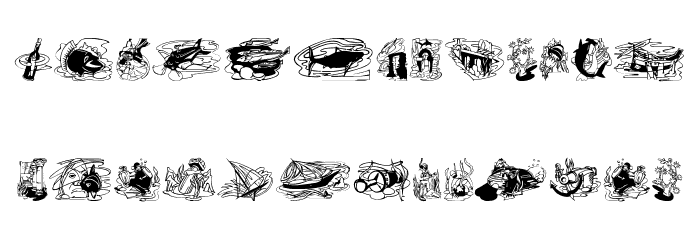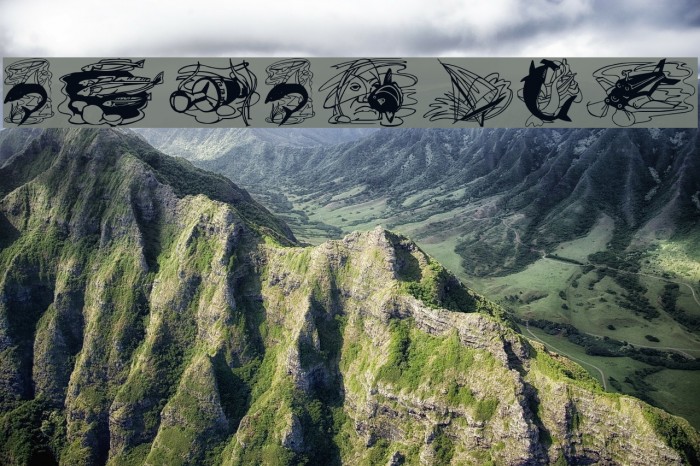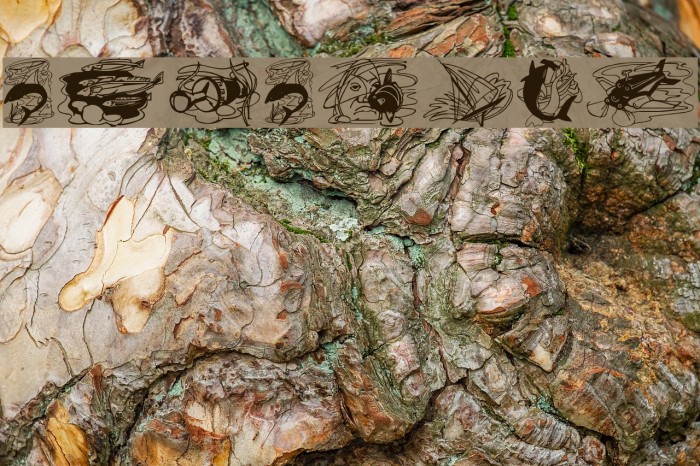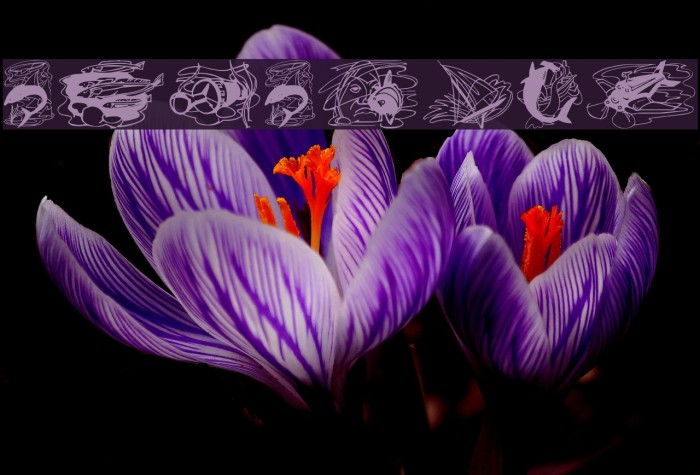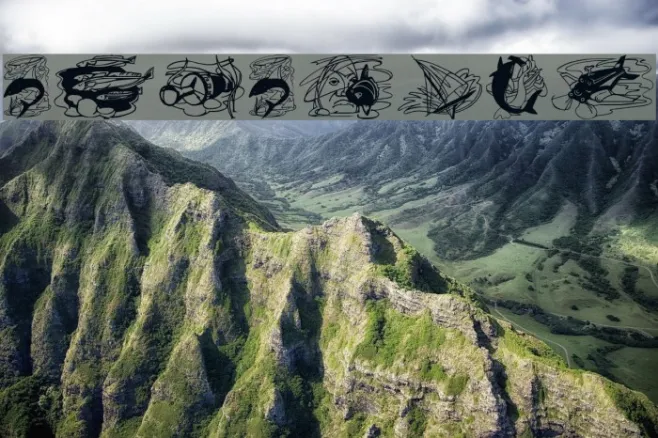
WetWorld Font
This collection features a series of intricate, aquatic-themed illustrations that replace traditional alphanumeric characters. Each symbol is a unique depiction of marine life or related elements, such as fish, waves, and sea creatures, crafted with detailed line work and artistic flair. The designs are highly decorative, making them suitable for projects that require a strong visual impact. The characters are not meant for typical text representation but rather for creative and thematic uses where the oceanic motif is central.
Intricate marine-themed illustrations replace standard characters.
- Proposed Projects: Ideal for ocean-themed posters, artistic projects, educational materials about marine life, or decorative elements in aquatic-themed events.
- Use Case: Logos, Decorative elements, Thematic artwork